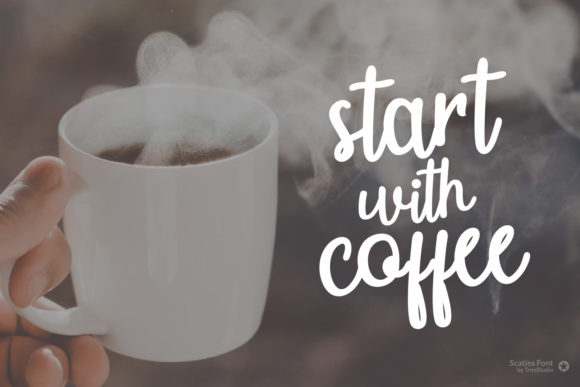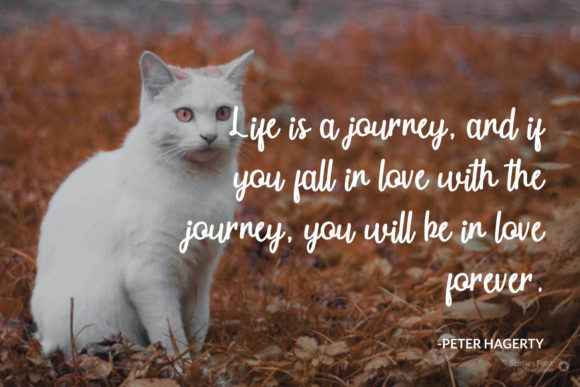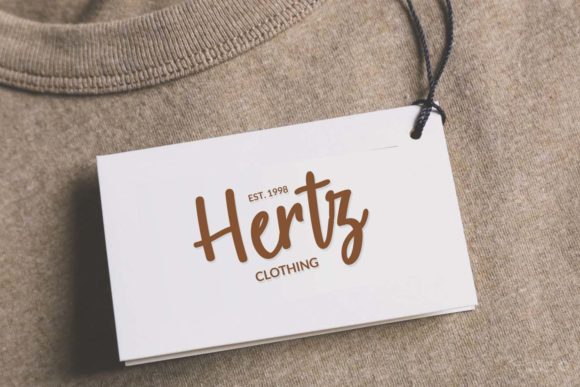
Introduction to Scaties Font
Have you ever stumbled upon a font that instantly puts a smile on your face and makes you want to create something amazing? For designers, that ‘aha’ moment is priceless. It’s the spark that sets off a chain reaction of inspiration, leading to a creative project that’s truly unique and captivating. That’s exactly what Scaties Font is all about – spreading joy and playfulness through high-quality typography.
As a valuable design resource, Scaties Font is more than just a font – it’s an experience. Its transparent background and cheerful script make it an ideal choice for designers looking to add a touch of whimsy to their work. And the best part? It’s available for a free download, making it accessible to creatives of all levels.
Key Features of Scaties Font
- Unique, hand-drawn design with a playful and creative feel, perfect for high-quality design projects.
- Features a transparent background, allowing for easy integration into various design elements.
- Scalable to 1024px in resolution, ensuring crisp and clear text display in various design contexts.
- Designed to be highly legible, making it suitable for body text, headings, and other typography elements.
Honest Review: Scaties Font
I recently stumbled upon the Scaties Font, and I must say, it’s been a pleasant discovery. As a designer, I’m always on the lookout for high-quality design resources to elevate my creative projects. The Scaties Font is a great addition to my collection.
What works well about the Scaties Font is its unique and playful style, which is perfect for projects that require a fun and whimsical touch. The font is also free to download, making it a great resource for designers on a budget. I appreciate that the font has a transparent background, which allows for seamless integration with other design elements.
- ✨ Unique and playful style
- ✨ Transparent background
However, I do have a few limitations to note. The font may not be suitable for projects that require a more formal or serious tone, as its playful style may not convey the desired message. Additionally, the font may not be as versatile as some other design resources, but this is a minor drawback in my opinion.
Overall, I’m impressed with the Scaties Font and would recommend it to designers looking for a fun and creative design resource. It’s a great addition to any design collection and can help take your creative projects to the next level.
Scaties Font is a high-quality, free design resource perfect for any creative project. With its transparent background and sleek design, it’s an ideal choice for adding a touch of sophistication to your work.
Scaties Font is perfect for a variety of creative projects, including logos, graphics, presentations, documents, and more. Use it to add a touch of sophistication and style to your work, whether you’re a designer, marketer, or entrepreneur.